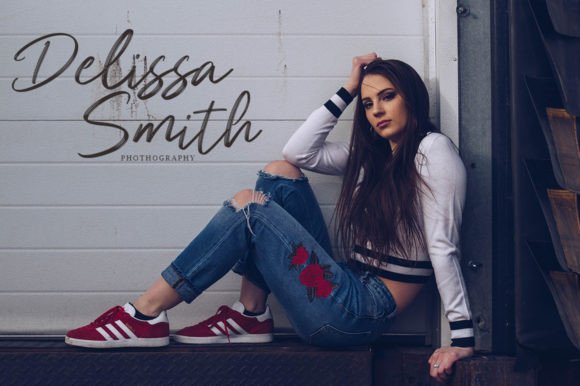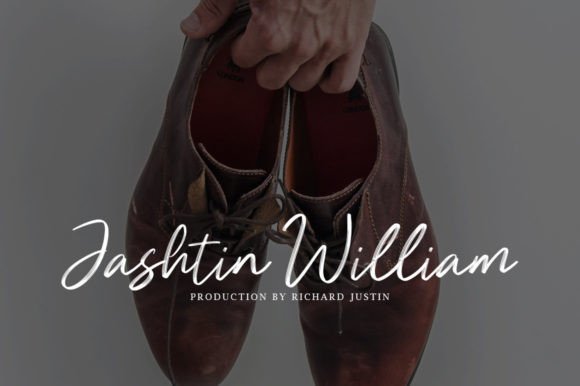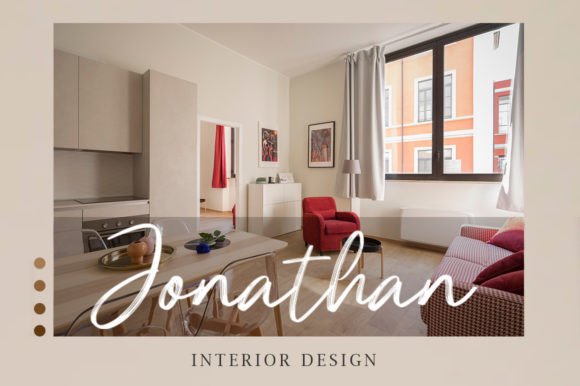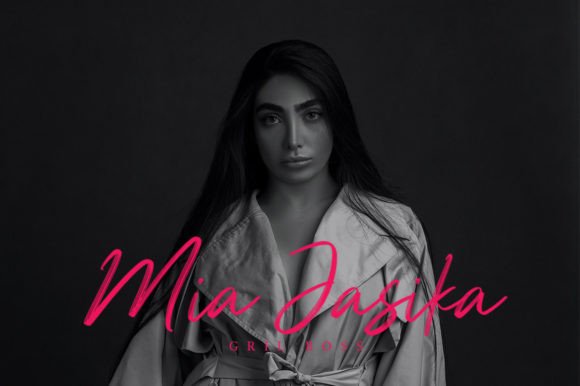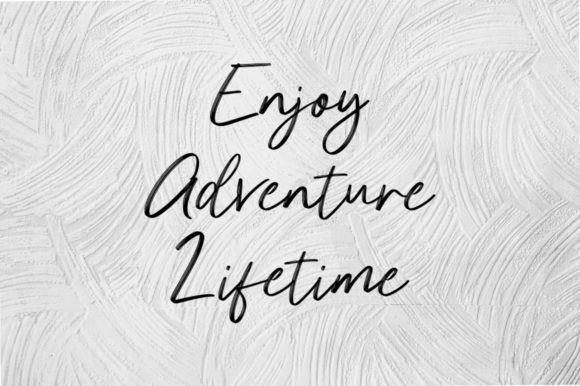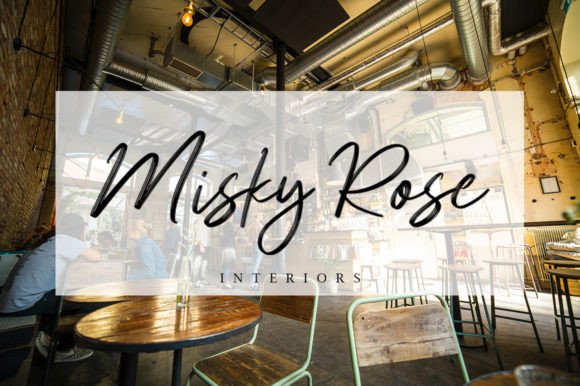
Introducing Brush Signature Font: Elevate Your Designs with Elegance and Sophistication
In the world of design, typography plays a crucial role in conveying the tone and personality of a brand or project. A well-chosen font can make all the difference in creating a lasting impression on your audience. If you’re looking for a font that exudes luxury, modernity, and elegance, look no further than Brush Signature Font. This fashionable and elegant handwritten font is designed to add a touch of sophistication to your designs, making it perfect for a wide range of applications.
What is Brush Signature Font?
Brush Signature Font is a beautifully crafted handwritten font that boasts a distinctive style with a modern twist. Its unique blend of classic and contemporary elements makes it an ideal choice for designers and crafters seeking to add a luxurious feel to their work. Whether you’re creating branding materials, logos, business cards, or marketing collateral, Brush Signature Font is sure to make a statement.
Key Features of Brush Signature Font
- Elegant and Fashionable: Brush Signature Font features a stylish and sophisticated design that’s perfect for high-end branding and marketing materials.
- Modern Touch: The font’s modern twist sets it apart from traditional handwritten fonts, making it ideal for designers looking for a fresh and contemporary look.
- Versatile: Brush Signature Font can be used for a wide range of applications, including logos, business cards, posters, invitations, greeting cards, and more.
- Luxurious Feel: The font’s elegant and refined design adds a touch of luxury to any project, making it perfect for high-end brands and designers.
Use Cases for Brush Signature Font
Brush Signature Font is an incredibly versatile font that can be used in a variety of contexts. Here are some examples of how you can use this beautiful font:
- Branding: Create a lasting impression with a custom logo or brand identity that showcases your brand’s personality and style.
- Logos: Design a unique and memorable logo that sets your brand apart from the competition.
- Business Cards: Add a touch of elegance to your business cards and make a lasting impression on potential clients.
- Posters: Create eye-catching posters that grab attention and showcase your brand’s message.
- Invitations: Design beautiful and elegant invitations for special events, weddings, or parties.
- Greeting Cards: Create heartfelt and stylish greeting cards for any occasion.
- Product Packaging: Add a luxurious touch to your product packaging and make your brand stand out on store shelves.
- Blog Posters: Create engaging and stylish blog posters that drive traffic and boost engagement.
Why Choose Brush Signature Font?
With so many fonts available, why choose Brush Signature Font? Here are just a few reasons why this font stands out:
- Unique Design: Brush Signature Font features a distinctive design that’s unlike any other font on the market.
- High-Quality: The font is crafted with precision and attention to detail, ensuring a high-quality design that’s perfect for professional applications.
- Versatile: The font can be used for a wide range of applications, making it a valuable addition to any designer’s toolkit.